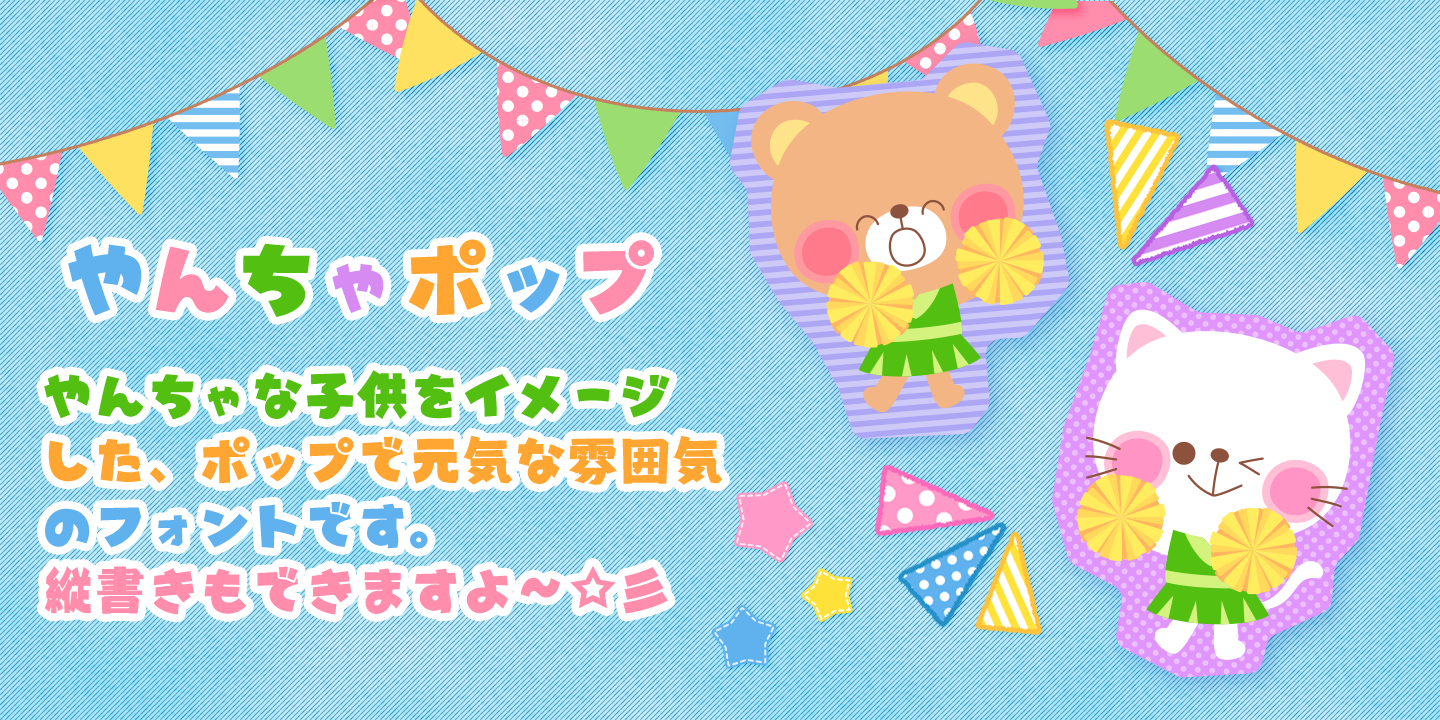
Yancha Pop Font is perfect for children's book covers, toy packaging, candy wrappers, cartoon logos, playful social media graphics, birthday party invitations, kids' apparel designs, and fun educational materials.
What makes Yancha Pop Font exciting is its vibrant, playful energy that instantly captures attention with bouncy, cheerful letterforms. This delightful typeface radiates joy and spontaneity, featuring rounded edges and dynamic character shapes that bring life to any design project requiring a fun, youthful atmosphere.
The Yancha Pop Font family includes regular and bold weights, plus decorative elements and playful alternates that enhance the whimsical nature with bubble-like characters and animated styling options.
This energetic typeface delivers exceptional visual impact while maintaining perfect readability, making Yancha Pop Font Free Download an essential choice for designers targeting younger audiences. The font's cheerful personality makes it ideal for brands wanting to convey happiness and approachability in their communications. Children's content creators and toy manufacturers particularly value its ability to communicate fun and excitement instantly. The carefully crafted letterforms ensure clarity across all applications, from large playground signage to small product labels. Whether you're designing colorful educational apps or creating memorable brand mascots, this font provides the perfect combination of playfulness and professionalism. Creative professionals consistently choose this typeface for projects requiring that ideal balance of entertainment value and clear communication standards.